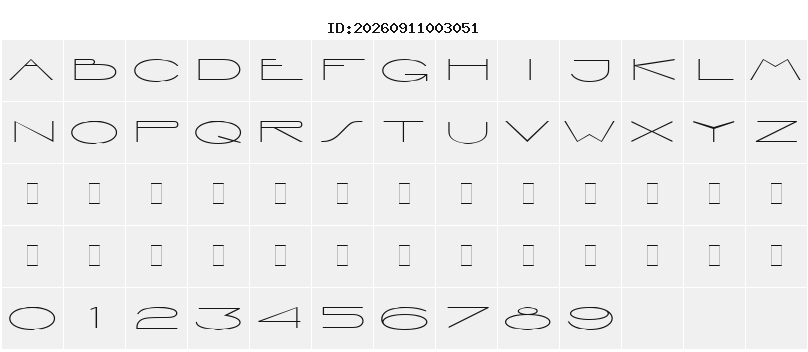
Vienna Extended LET Preview
• Font Name: Vienna Extended LET
• Font Style: Plain
• Font ID: Vienna Extended LET Plain
• Full Font Name: Vienna Extended LET Plain:1.0
• PostScript Name: ViennaExtendedLetPlain
About Vienna Extended LET.ttf
Vienna Extended LET.ttf is a modern, elegant sans-serif font designed for ultimate readability and visual harmony. Perfect for branding, headlines, web design, and print materials.